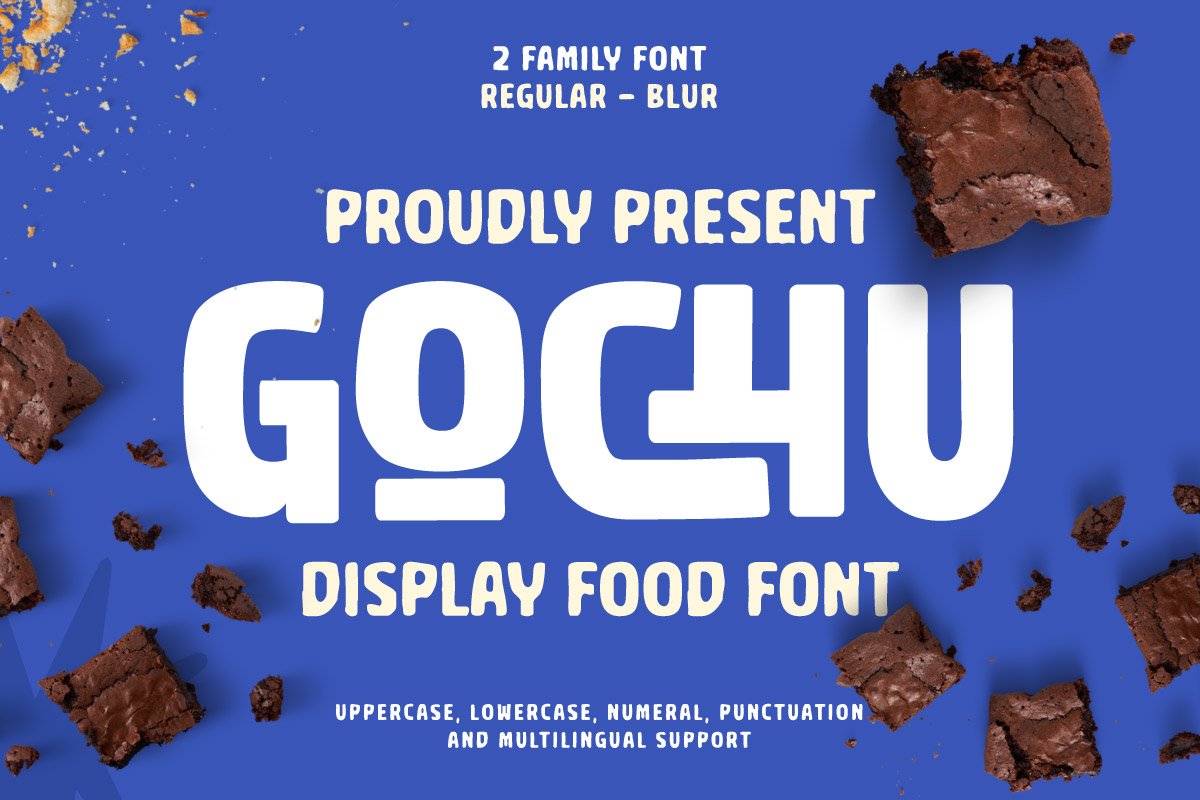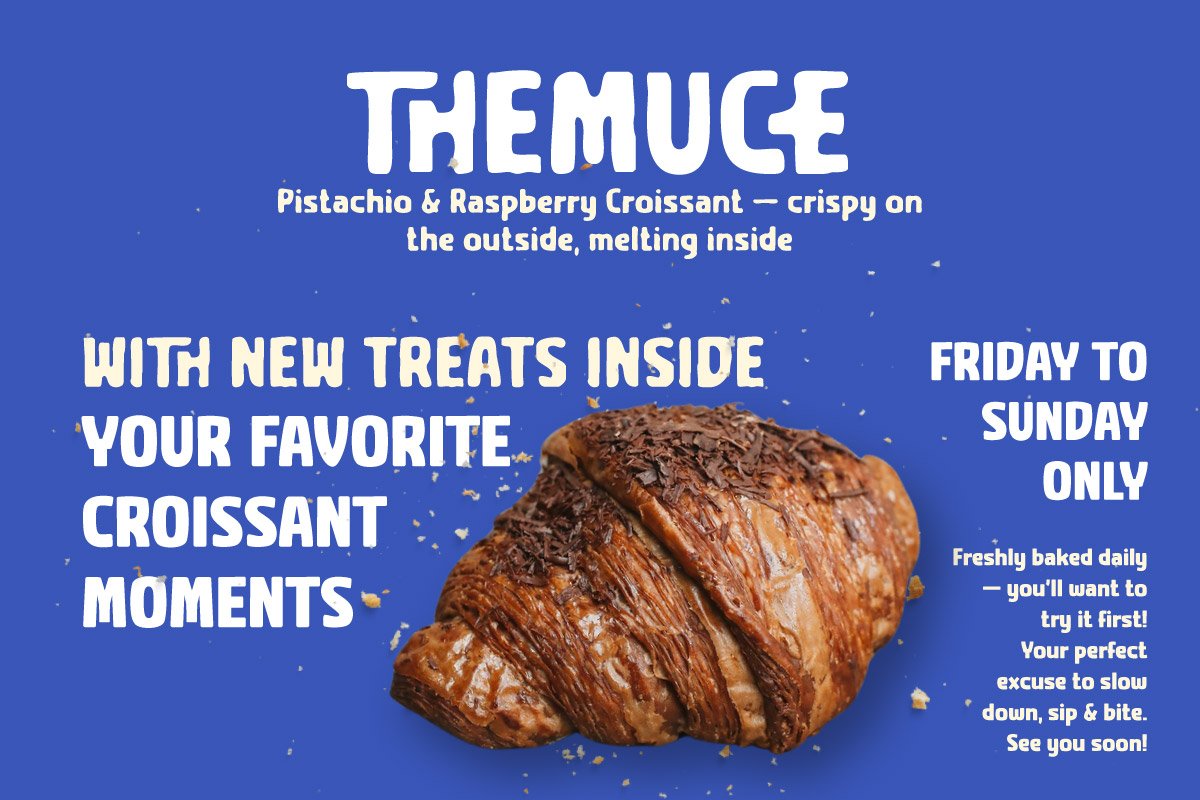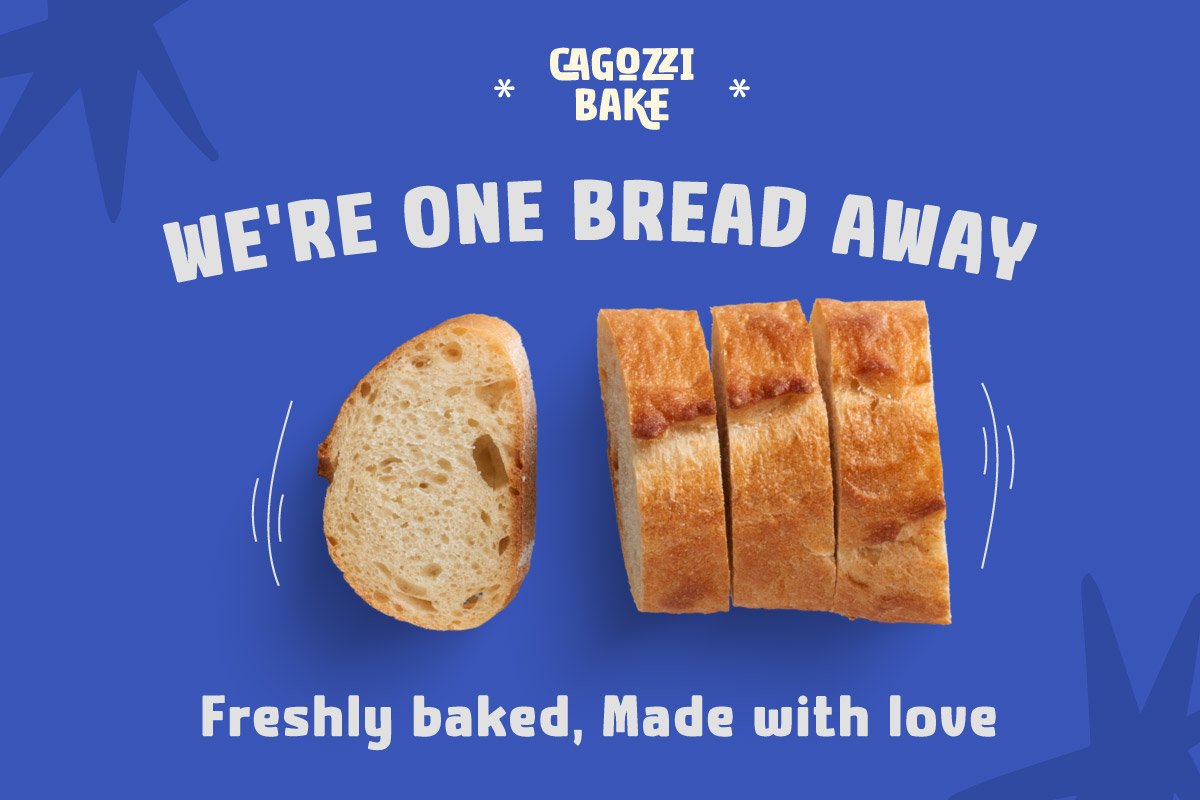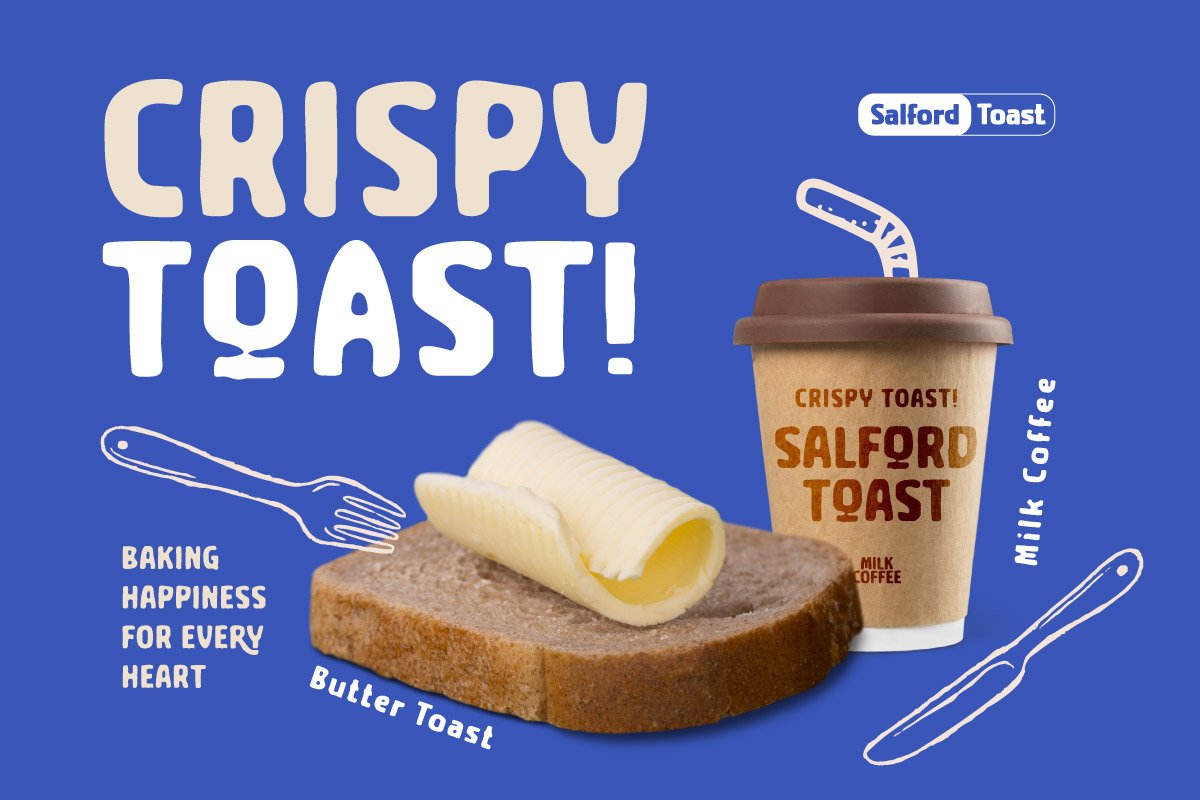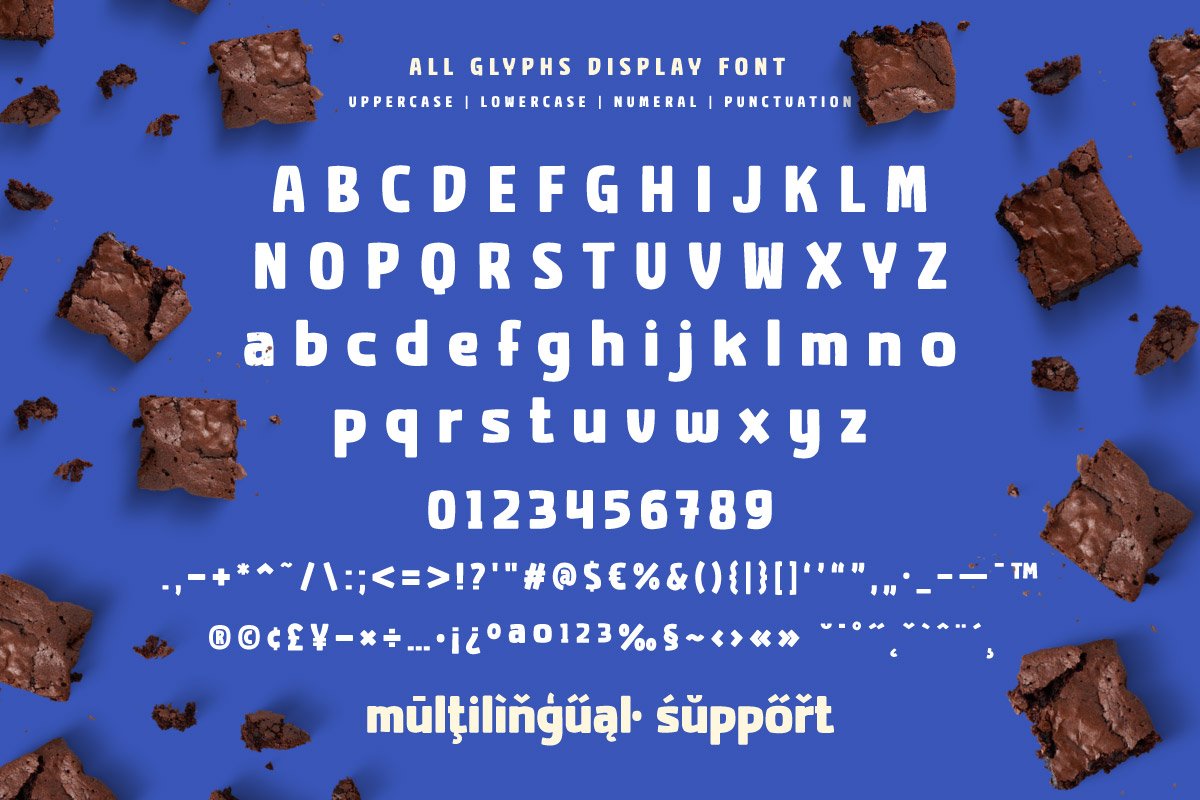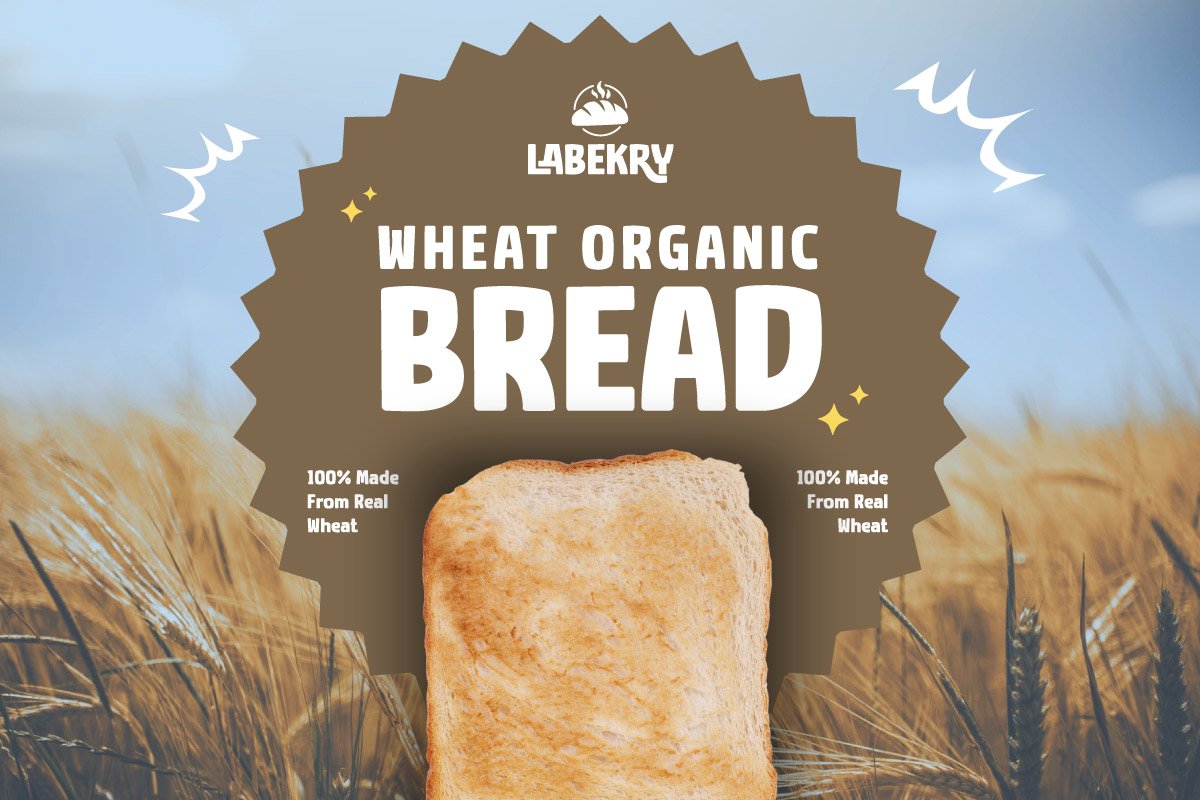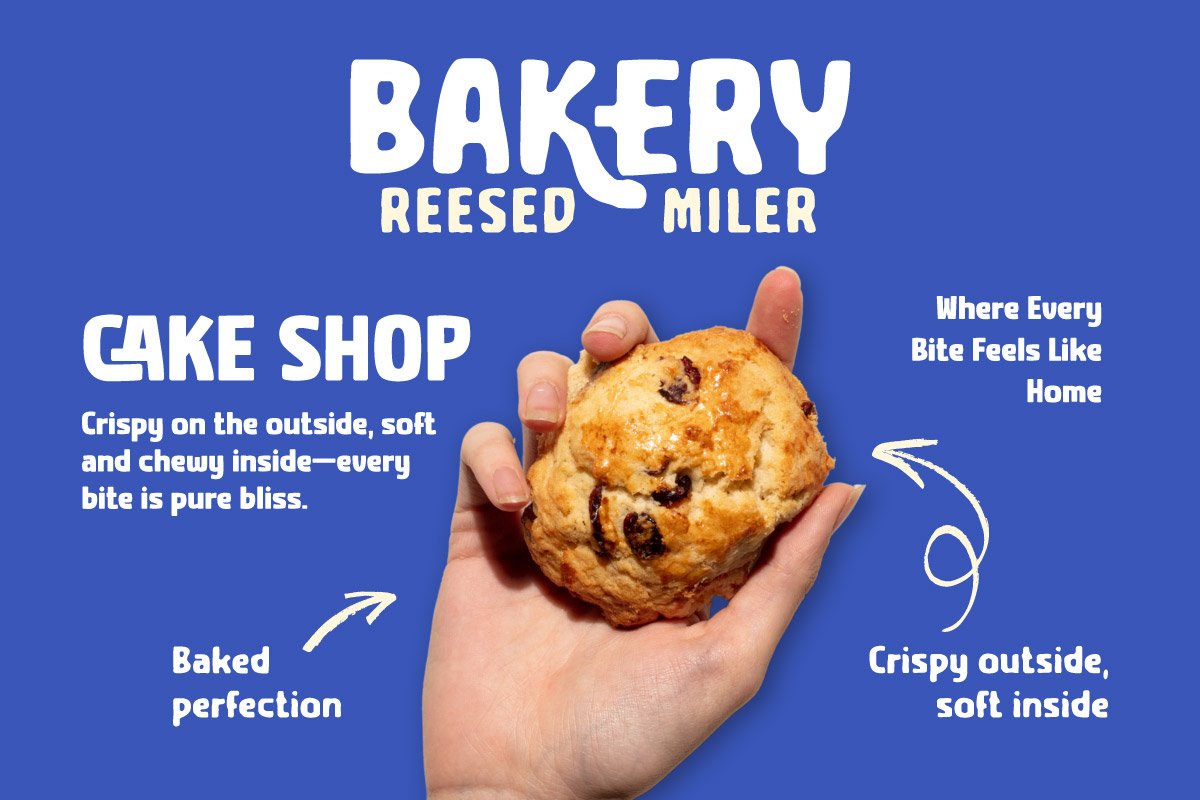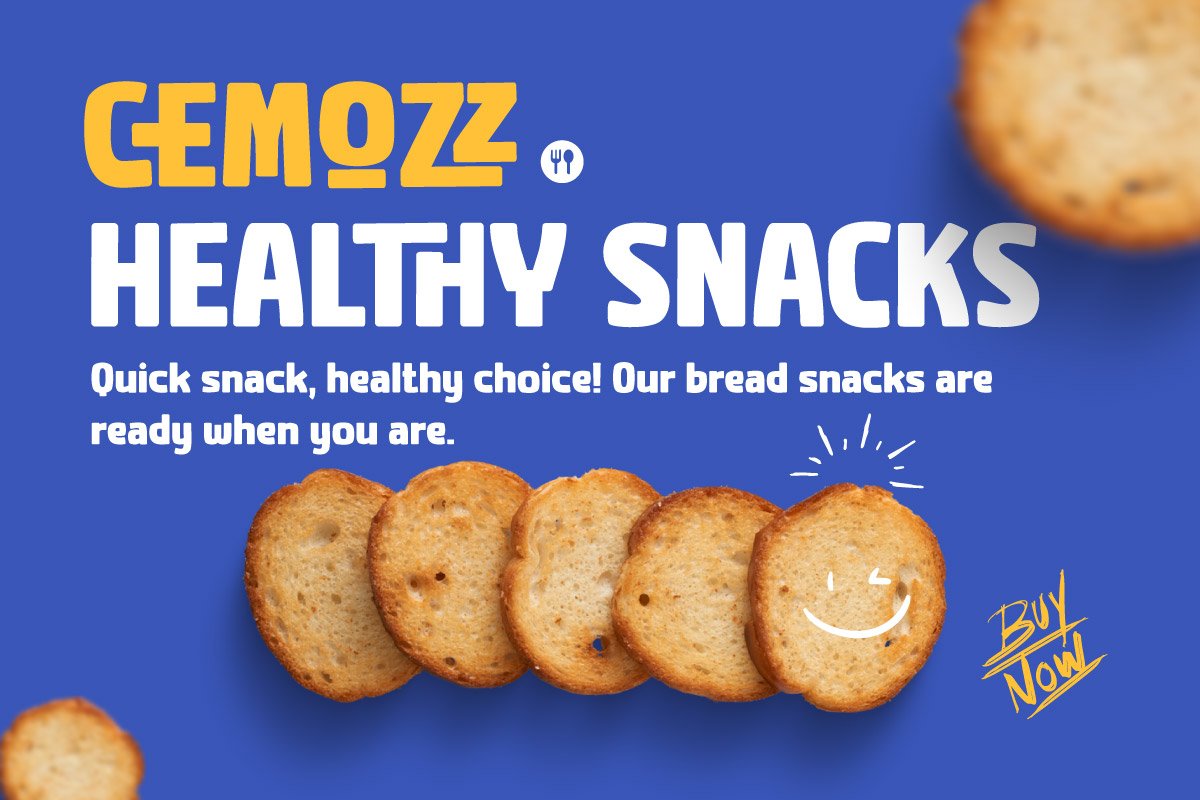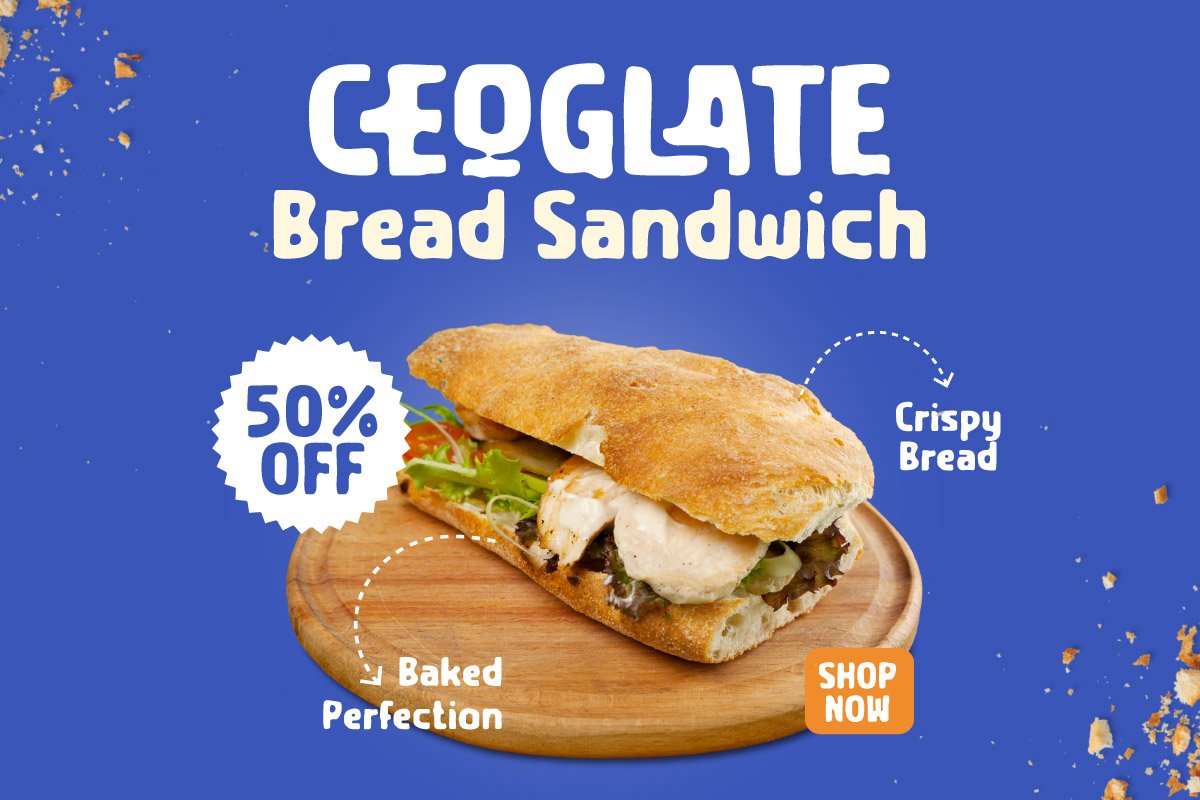
Gochu – Display Font
Gochu is a sweet and delightful bakery display font designed to bring warmth and charm to your culinary-themed projects. With its soft curves, chubby letterforms, and handcrafted feel, Gochu evokes the cozy atmosphere of a traditional bakery or pastry shop. It’s perfect for bakery logos, packaging for cookies and cakes, dessert menus, food blogs, café branding, and anything that needs a touch of homemade love.
The rounded and friendly appearance of Gochu creates an inviting impression that instantly makes your design more approachable. Whether you’re designing a label for homemade treats or creating playful headlines for a food magazine, Gochu will add the perfect sprinkle of personality and flavor..